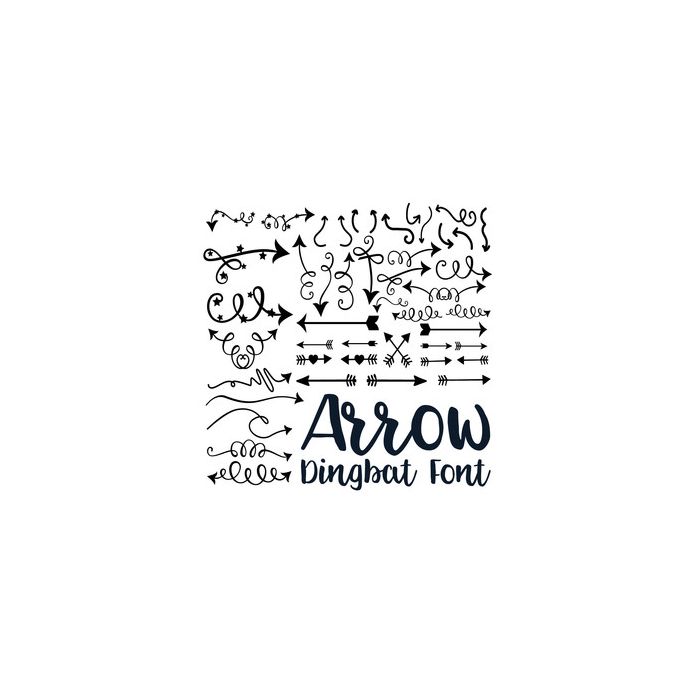
Dingbat Arrow Font. Hand drawn font, includes 62 arrows. For more design ideas, coordinating designs & products and inspiration, please visit my blog http://www.sarahhurleyblog.com